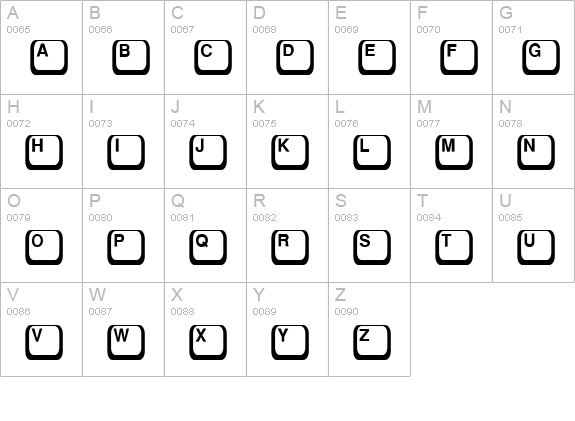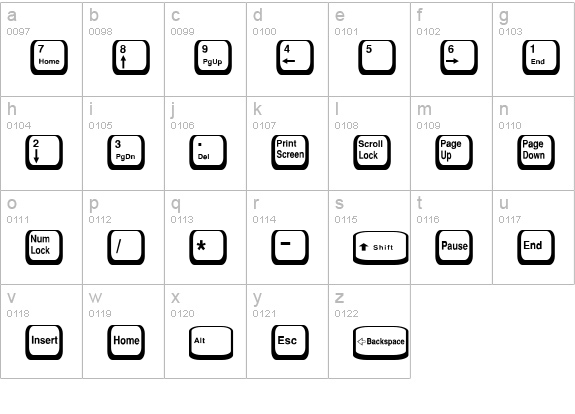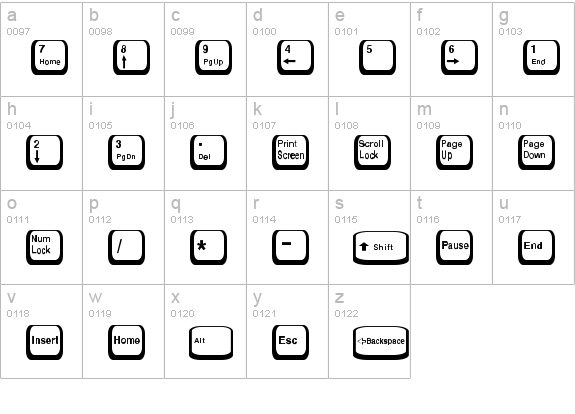
KeyCaps Normal is the standard, neutral variant in the KeyCaps typeface family \xE2\x80\x94 well suited to general body text, paragraphs, and standard typographic work.
KeyCaps Normal is a versatile and visually appealing font that is sure to make your designs stand out. This font features a clean and modern look, making it perfect for a wide range of projects, from branding and logos to print materials and web design. With its sleek and stylish design, KeyCaps Normal adds a touch of professionalism and sophistication to any project. The characters are well-defined and easily legible, making it a great choice for both large and small text sizes. One of the best things about KeyCaps Normal is that it is available for free download at FontsMarket.com. This means that you can easily access and use this font in your projects without any cost. Whether you are a professional designer or a beginner, this font is a valuable asset that can elevate your work to the next level. The versatility of KeyCaps Normal allows it to be used in various design styles and themes. Its clean lines and balanced proportions make it suitable for both minimalist and bold designs. Whether you are creating a sleek corporate logo or a vibrant poster, this font can adapt to your needs. KeyCaps Normal also includes a wide range of special characters and symbols, allowing you to add a unique touch to your designs. These additional characters provide endless creative opportunities and enable you to personalize your work. In conclusion, KeyCaps Normal is a stunning font that offers both style and functionality. Its availability as a free download at FontsMarket.com makes it even more attractive to designers of all levels. Don't miss the opportunity to enhance your projects with this exceptional font.